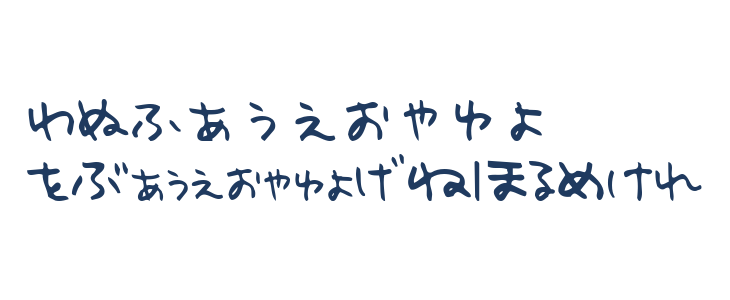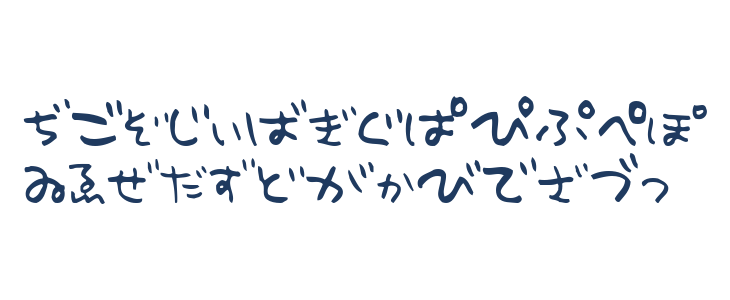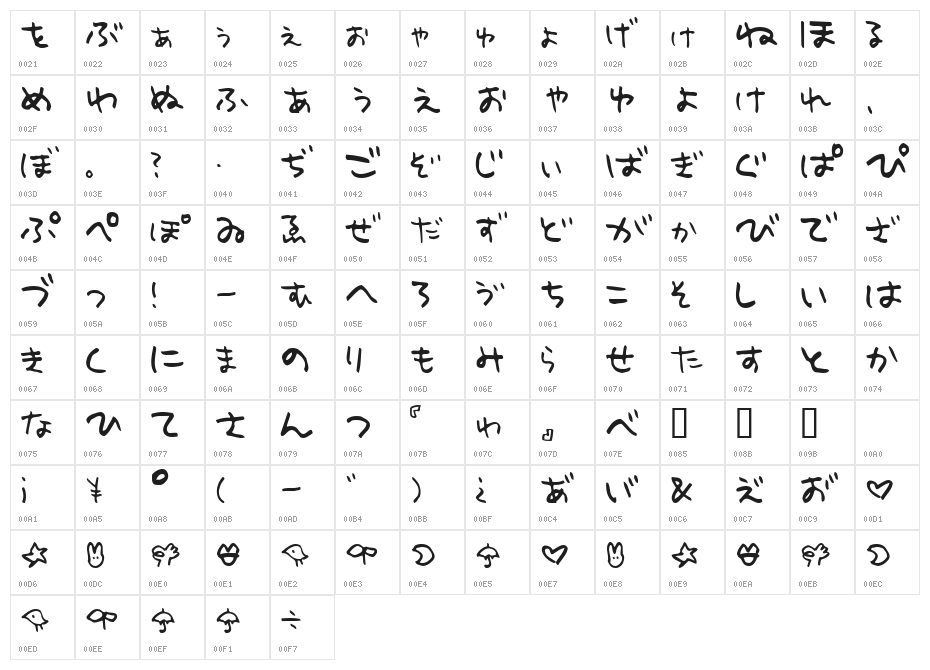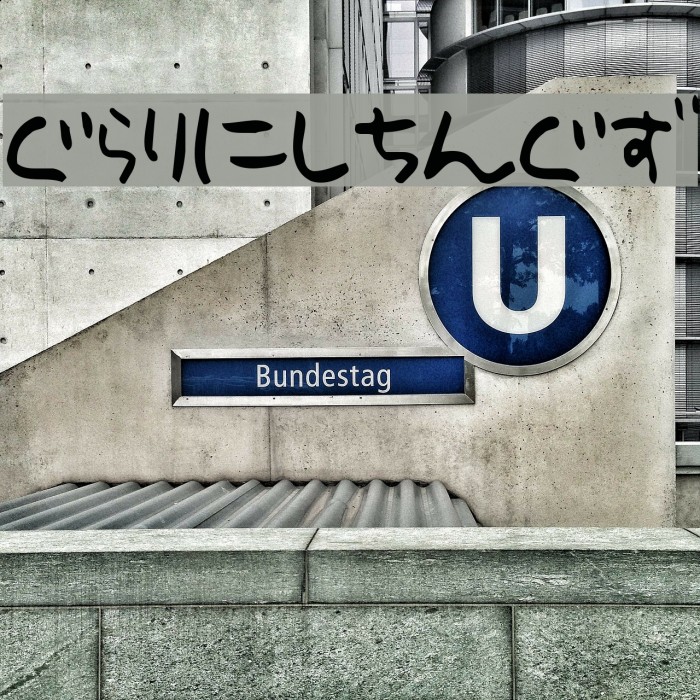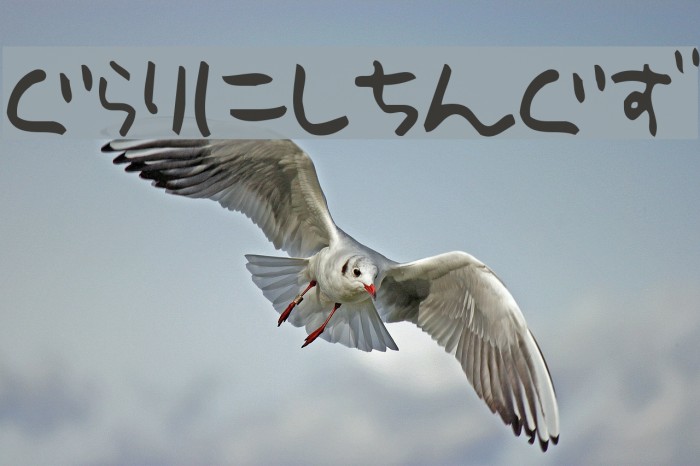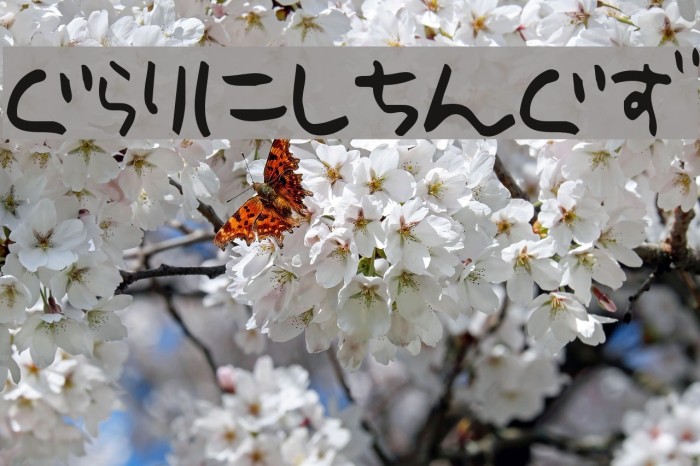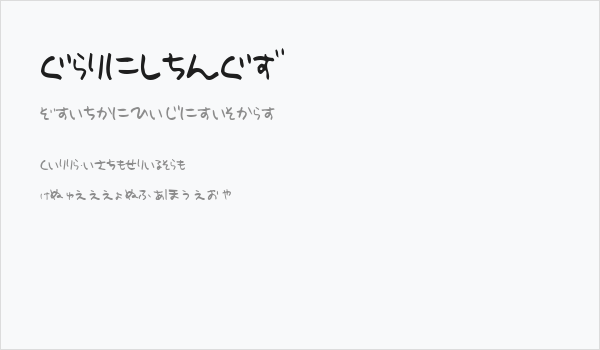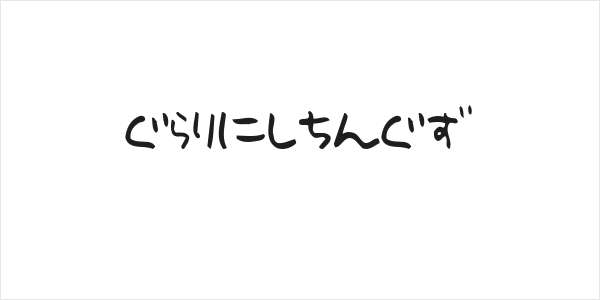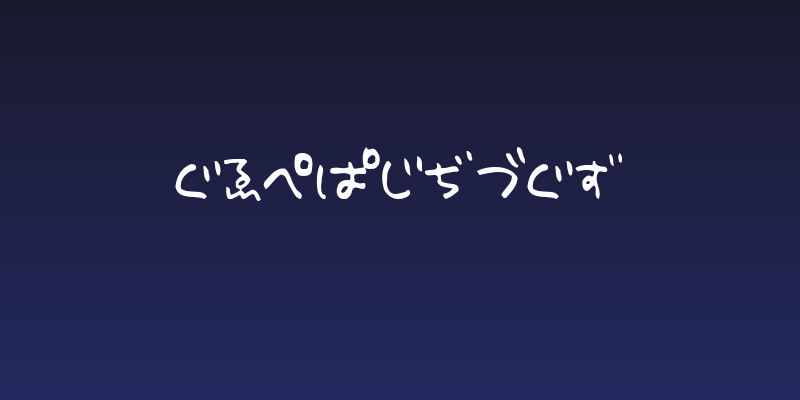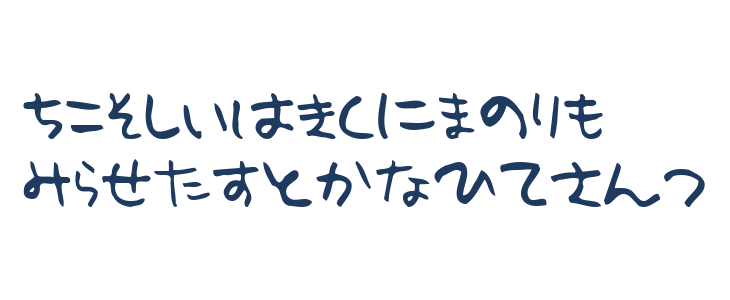
HolidayHR Font
HolidayHR Description
This font features a playful and casual handwritten style, characterized by its smooth curves and slightly irregular strokes. The letters are rounded and have a friendly appearance, making them suitable for informal and creative projects. The font maintains a consistent baseline, while the character shapes vary slightly in size and width, adding to its whimsical charm. The overall look is approachable and warm, with a touch of spontaneity that captures the essence of personal handwriting. This font is ideal for projects that require a personal touch or a relaxed, informal vibe.
| Proposed Projects | Greeting cards, children's books, personal blogs, informal invitations, and creative posters. |